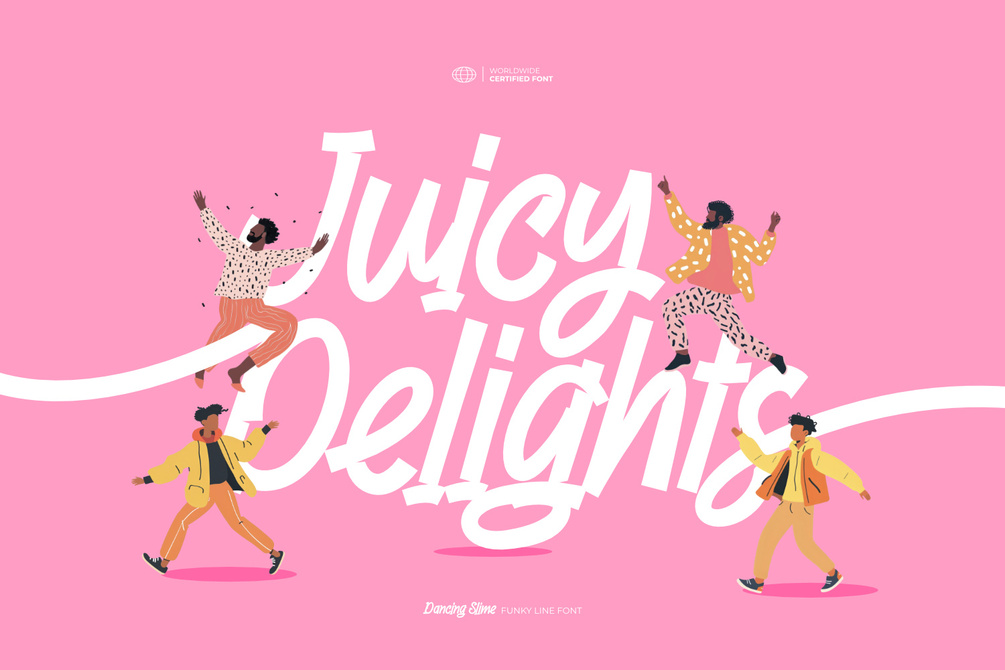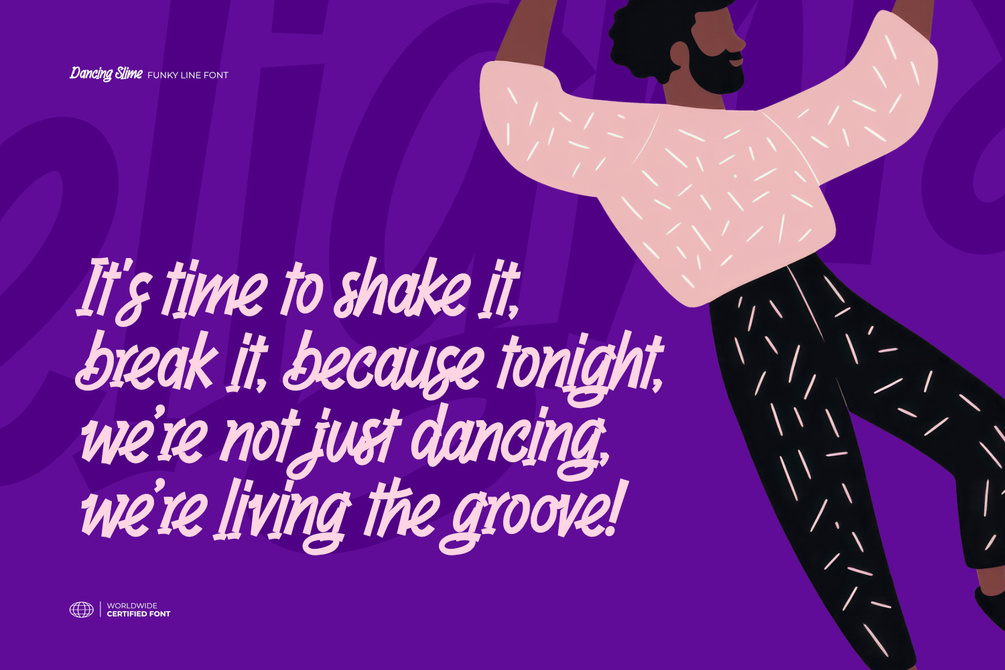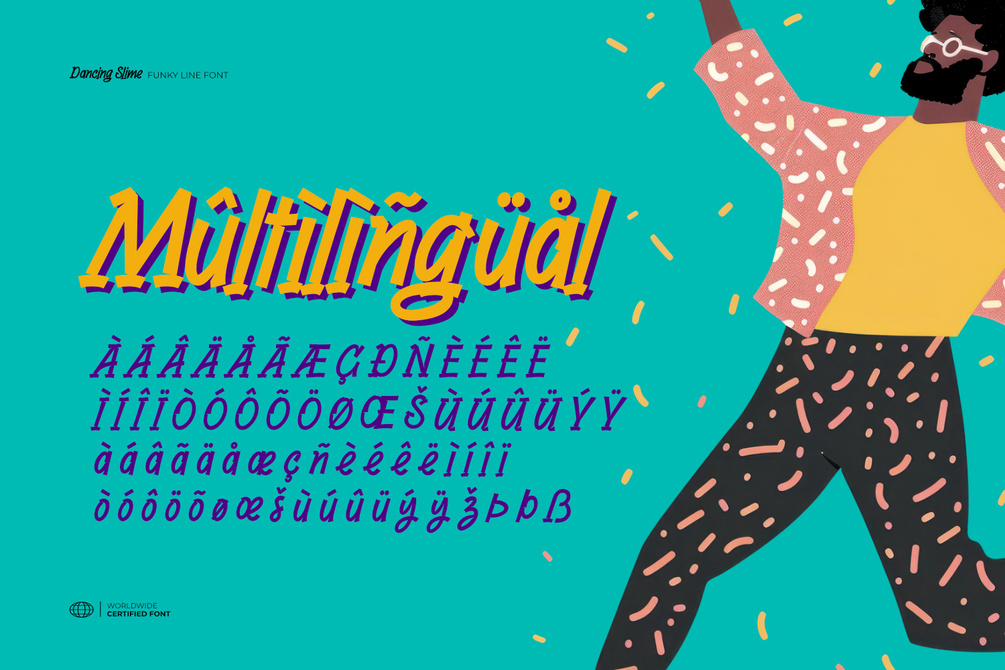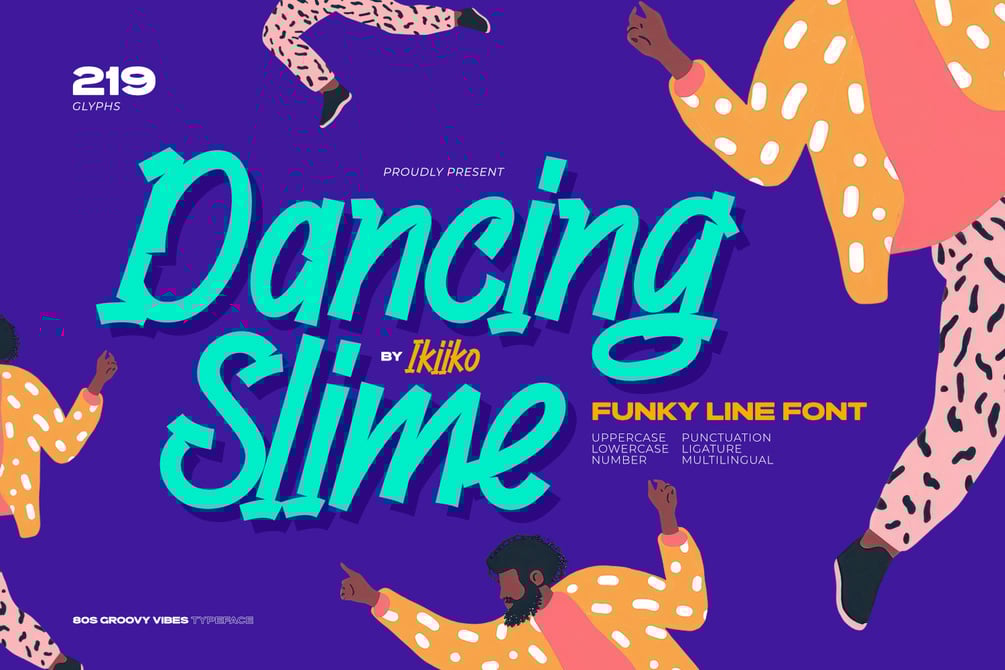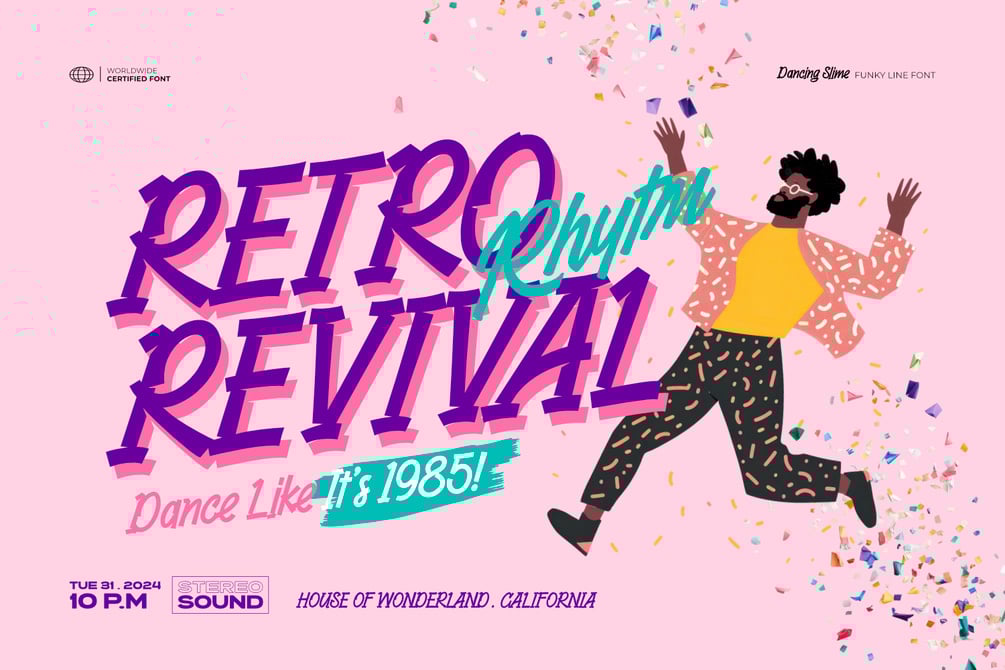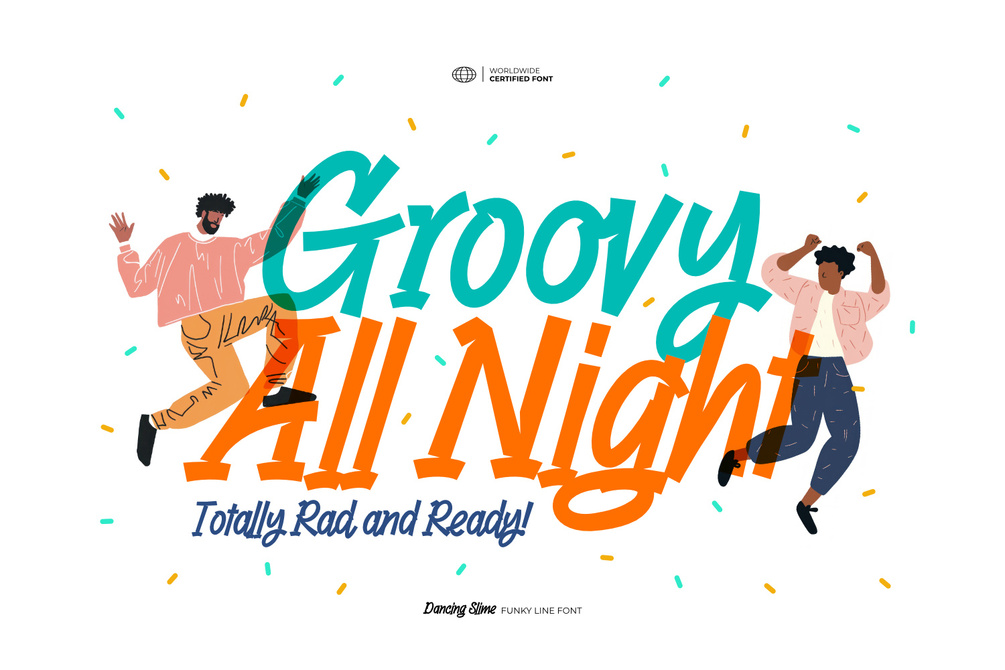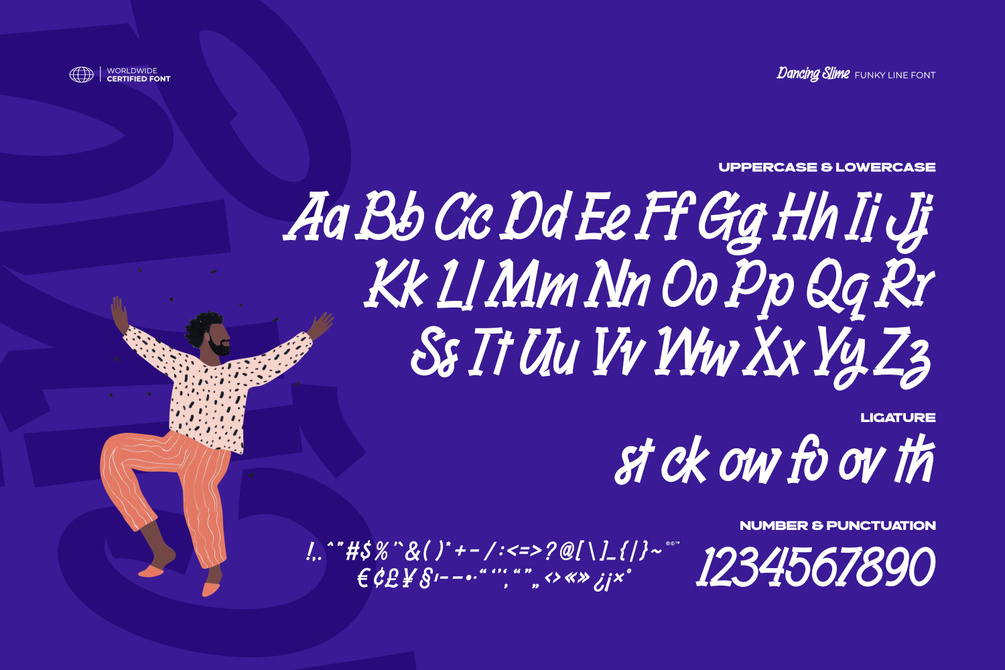
Dancing Slime - Funky Line Font
Proudly present Dancing Slime - Funky Line Font, created by ikiiko.
Get ready to groove with a funky bold line font that oozes personality and retro flair! This hand-drawn script style brings fluid strokes and cheerful energy, making it the perfect choice for designs that need to pop with 80s vibes and modern retro wave aesthetics.
Its playful, groovy flow captures the essence of carefree creativity, giving you a dynamic font that feels both nostalgic and fresh. Let your work shine with Dancing Slime, because nothing says “cool” like a splash of funky fun!
This font is perfect for animated ads, poster, flyer, book cover, packaging, food & beverages and other designs that need a touch of fun and creativity
• Uppercase & Lowercase
• Numbers & Punctuation
• Ligatures
• Multilingual Support